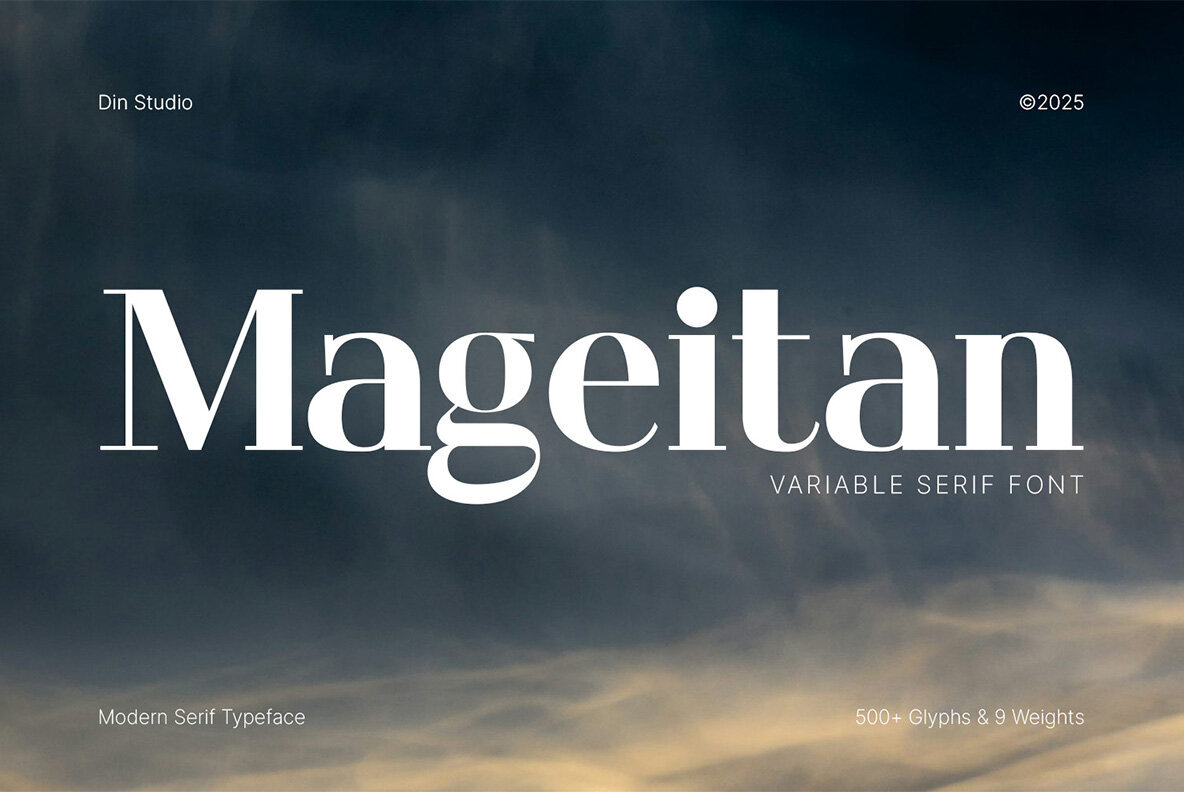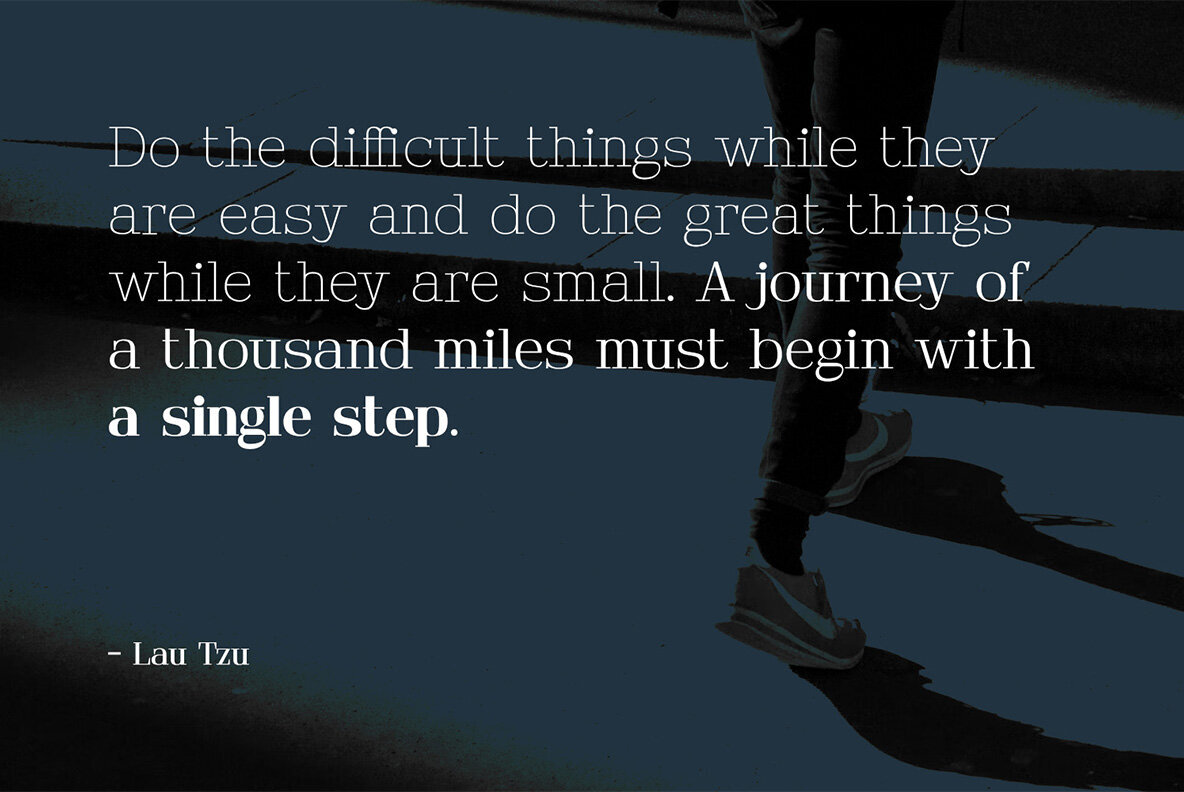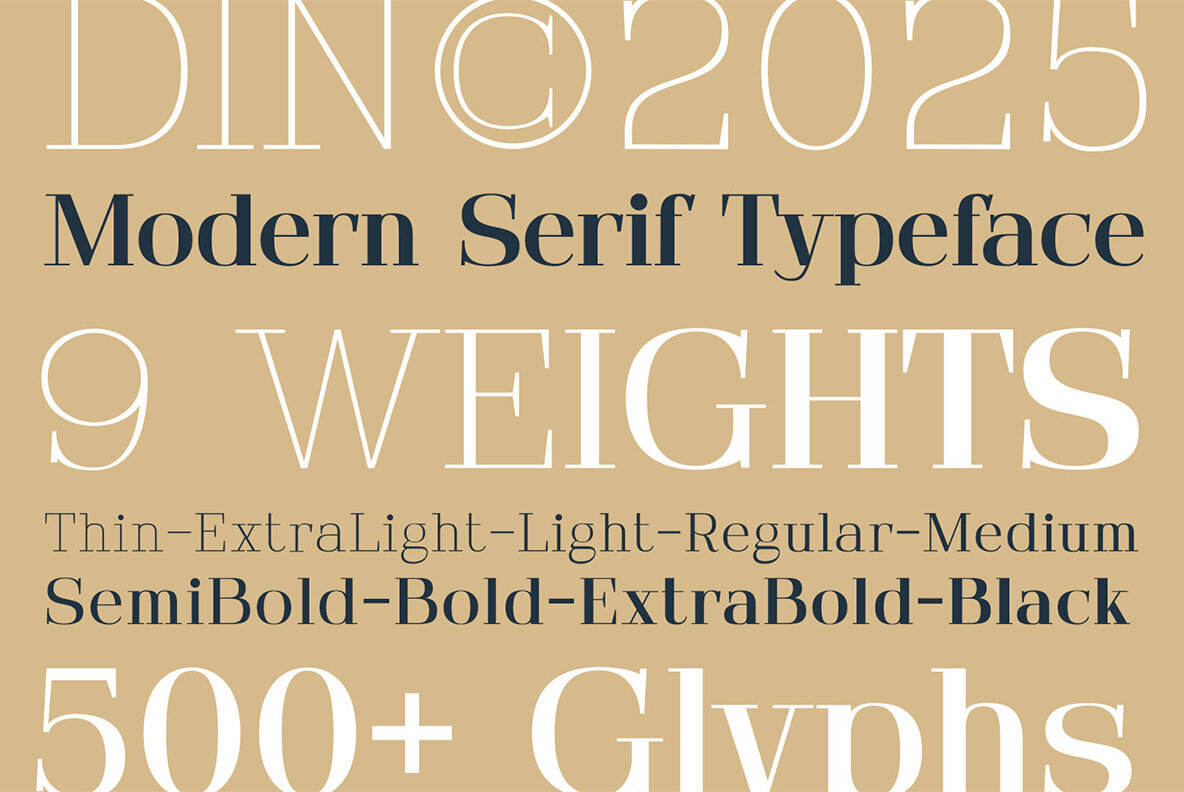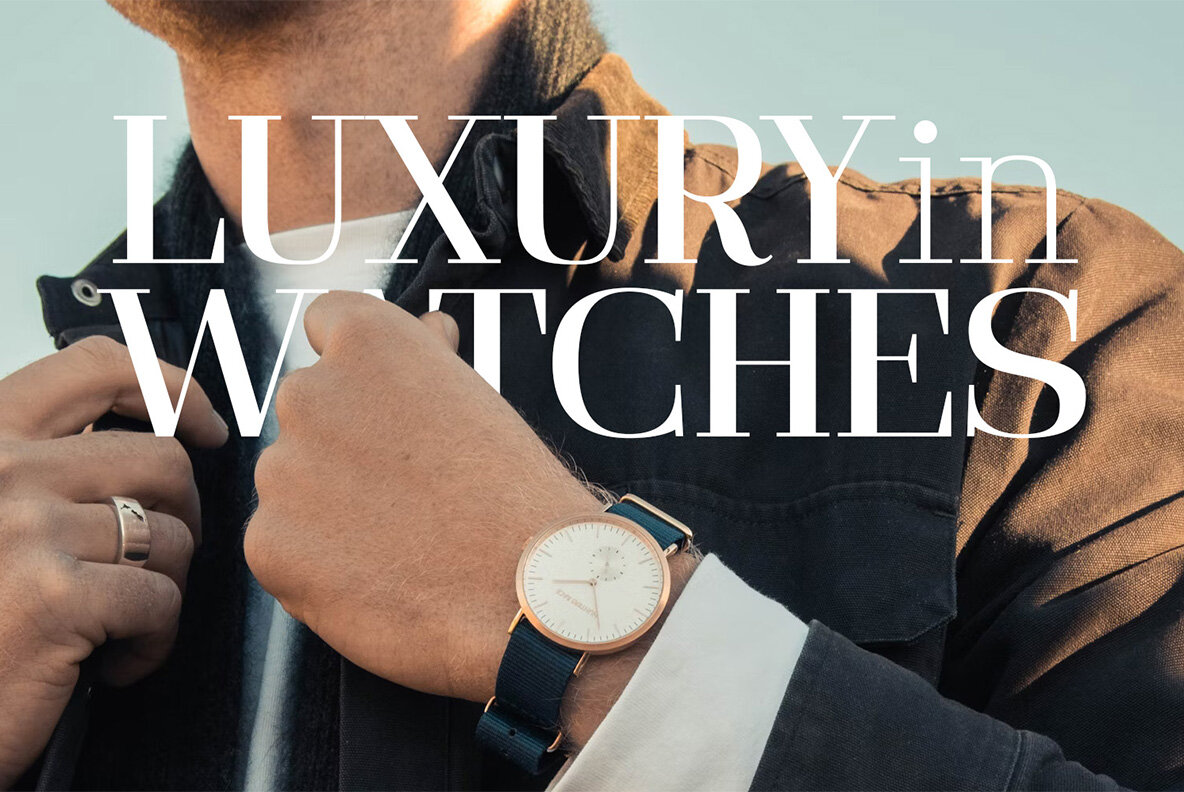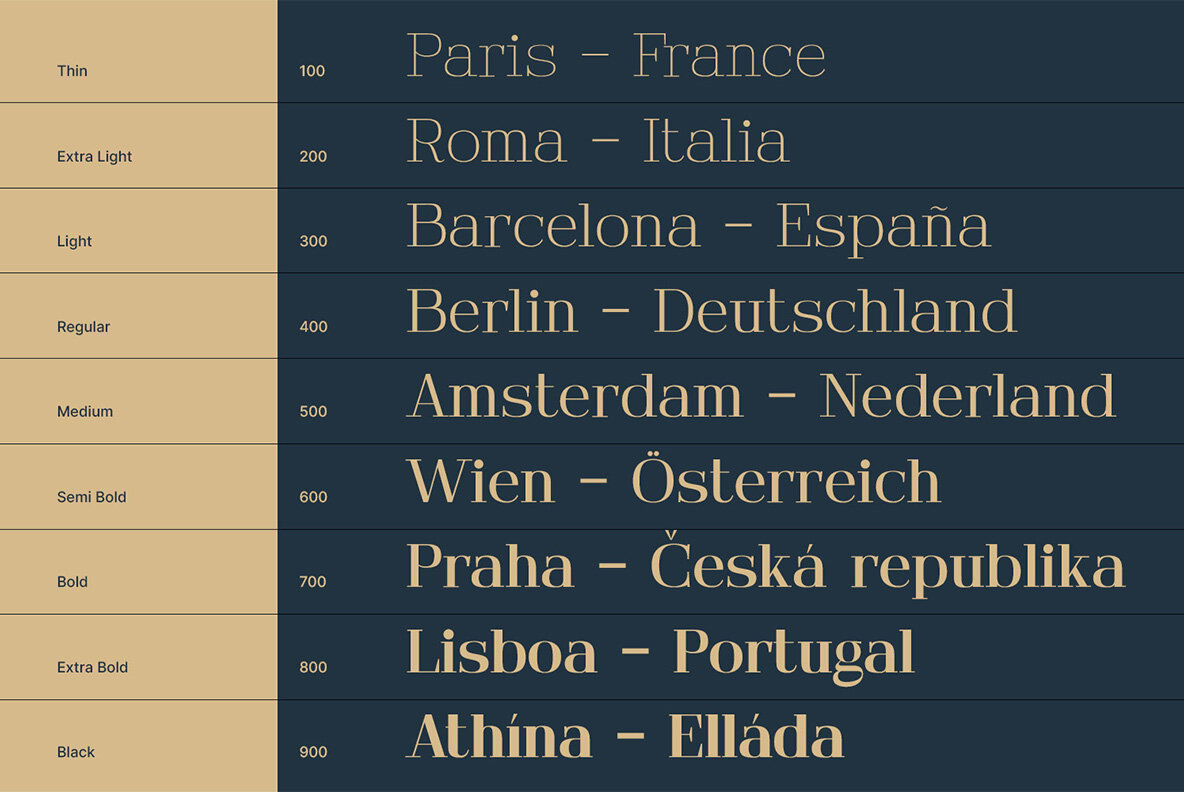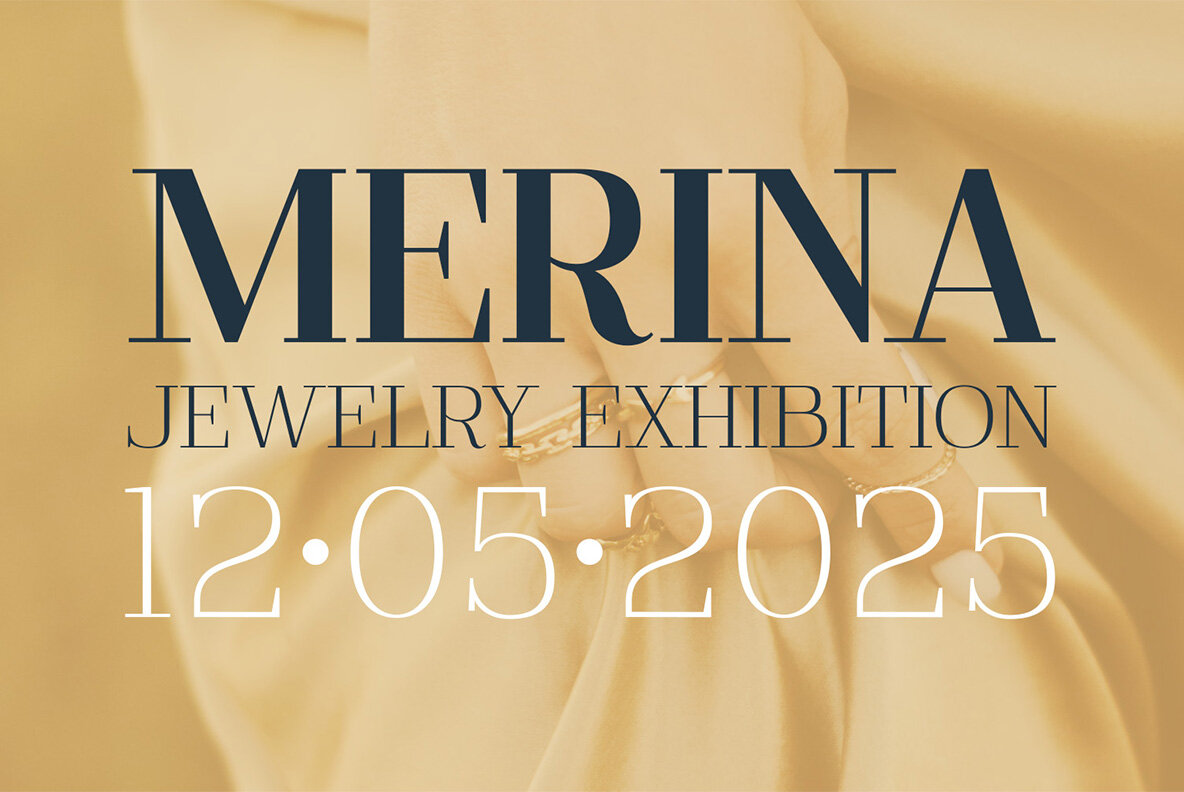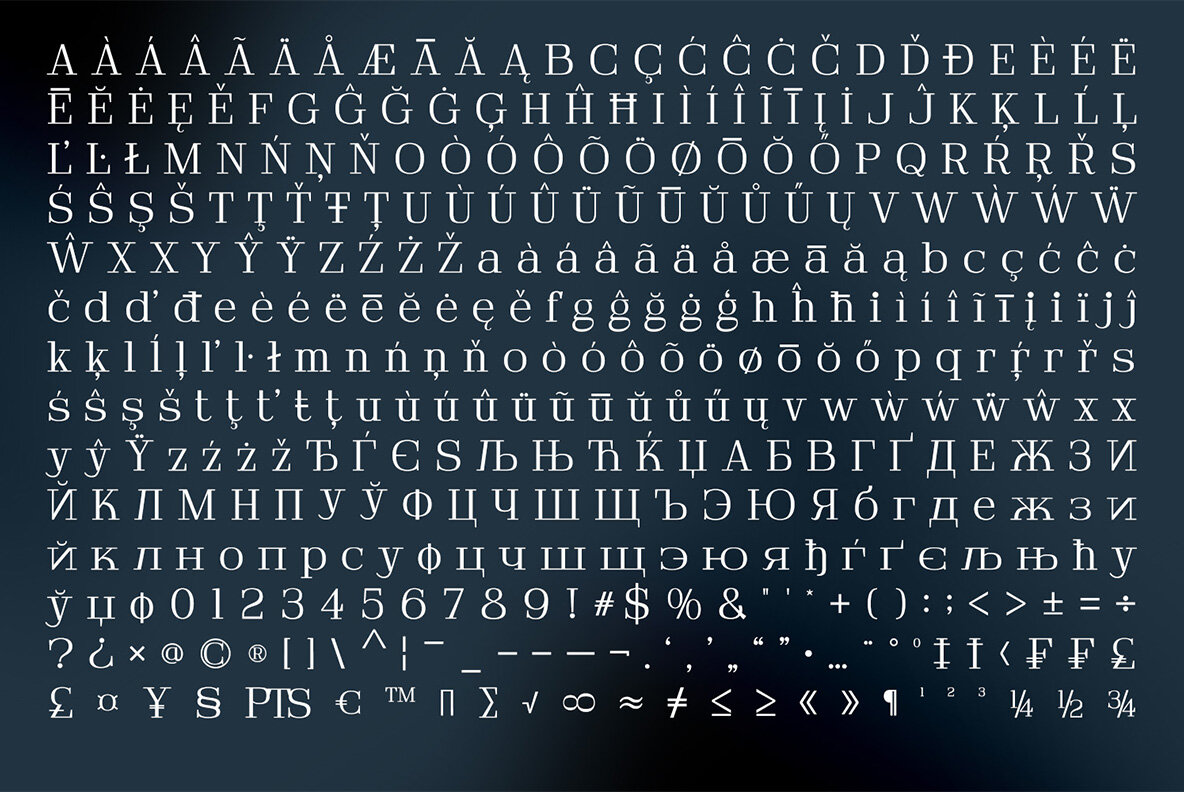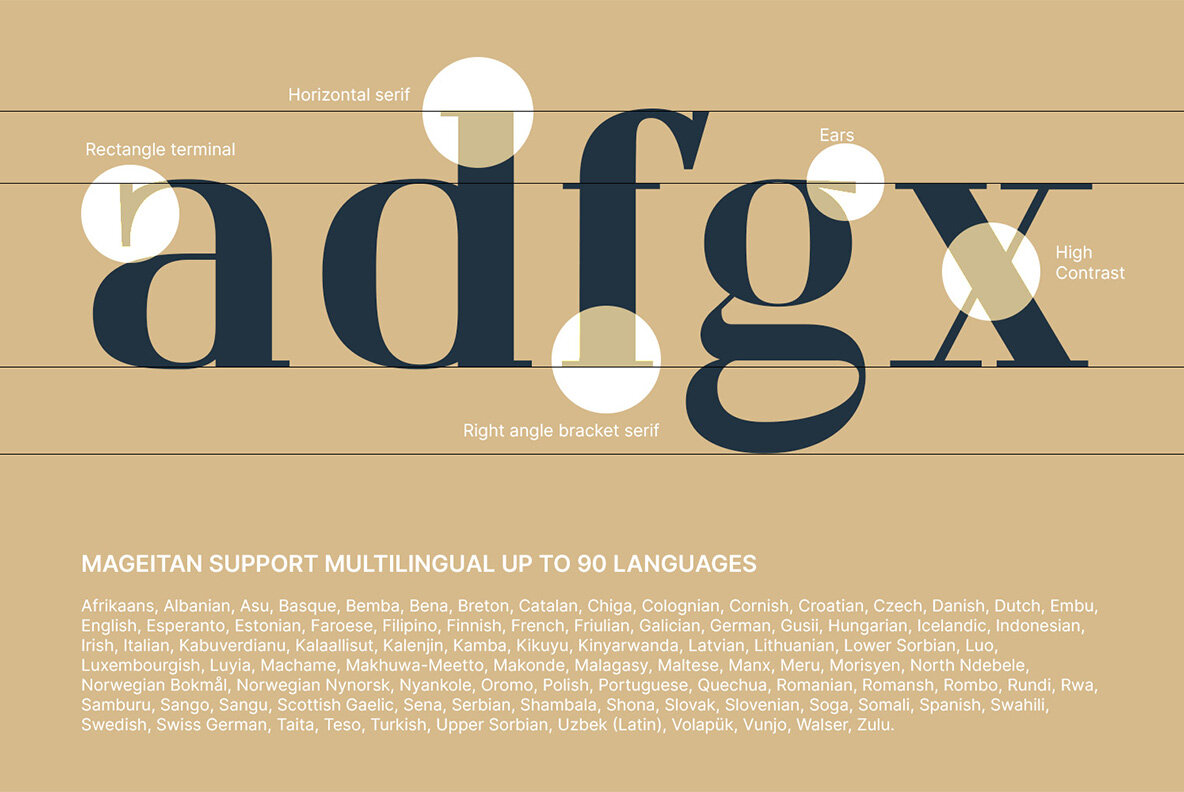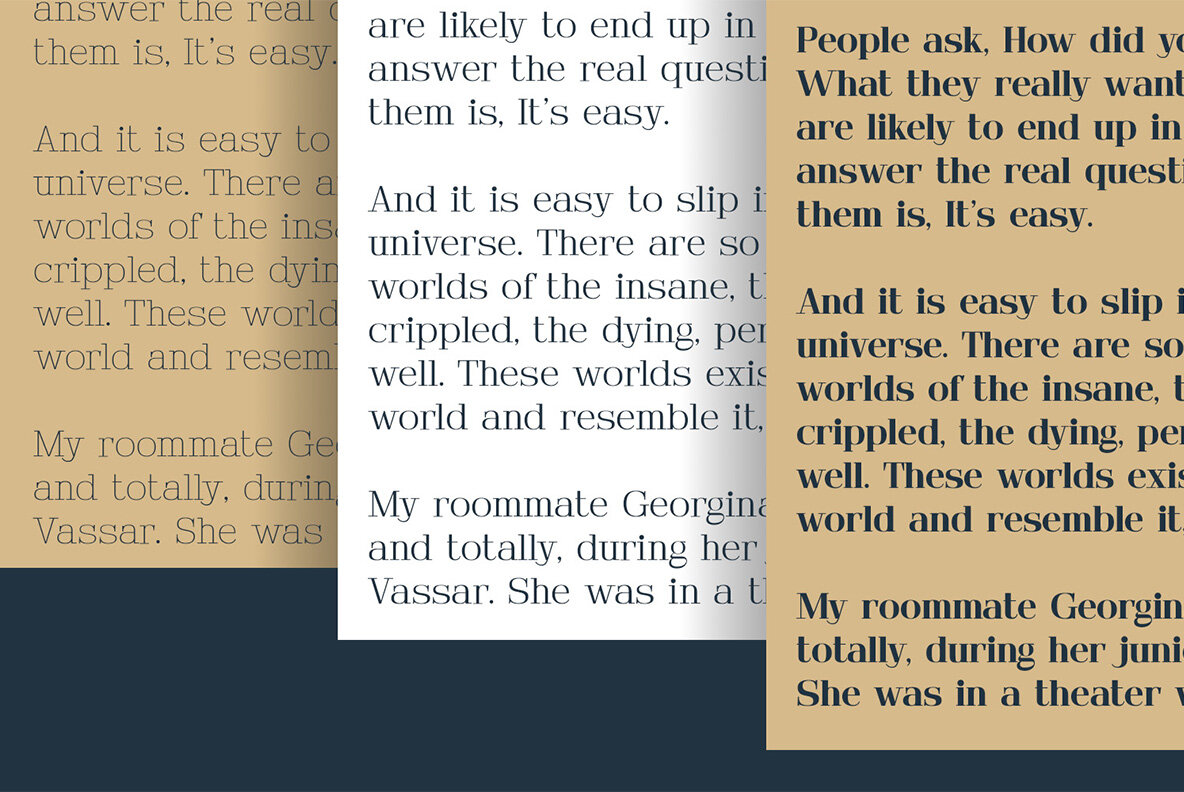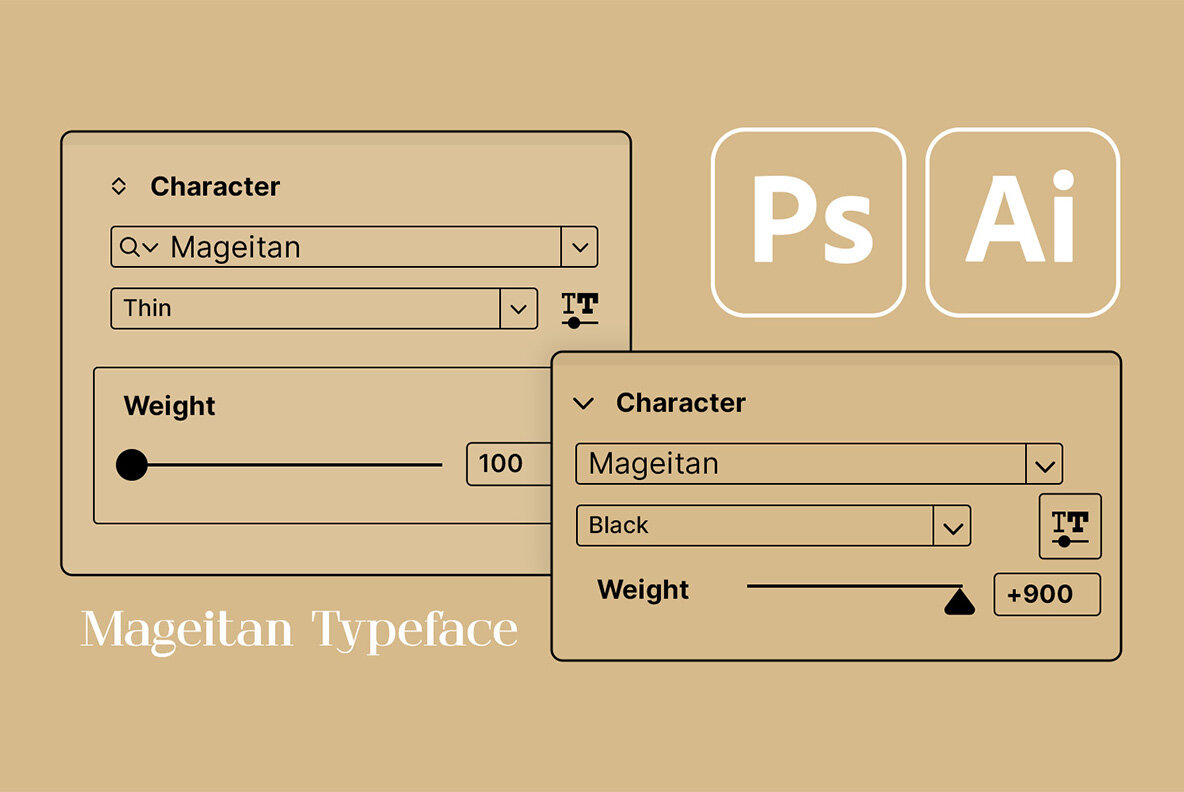
Mageitan Font
Mageitan is a refined serif font family that seamlessly blends simplicity, modernity, and elegance. With nine meticulously crafted weights, ranging from delicate Thin to commanding Black, this versatile typeface is perfect for a variety of design applications. Its letterforms combine crisp, clean lines with subtle, graceful details, creating a contemporary aesthetic that pays homage to timeless typographic traditions. Whether you're designing bold branding, packaging, posters, headlines, or editorial layouts, Mageitan delivers a confident yet understated charm that adapts to your creative vision. Explore further possibilities with a preview of this exquisite font family.Mageitan Serif Font Family